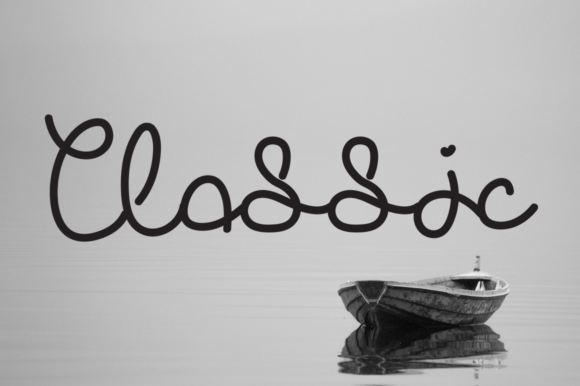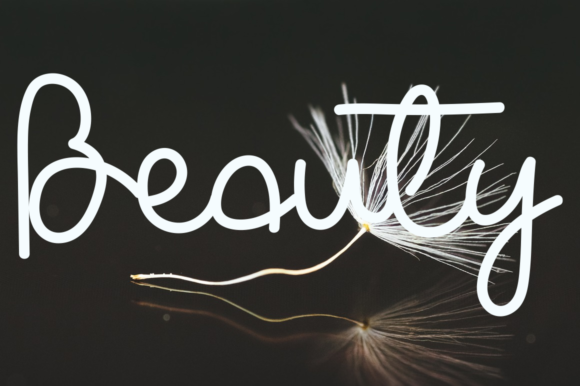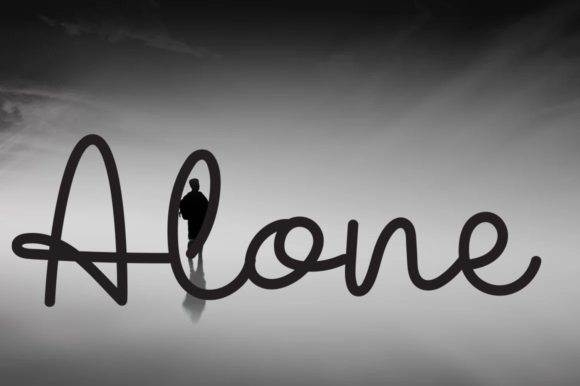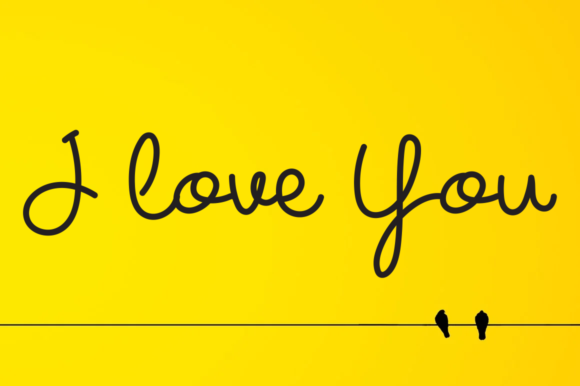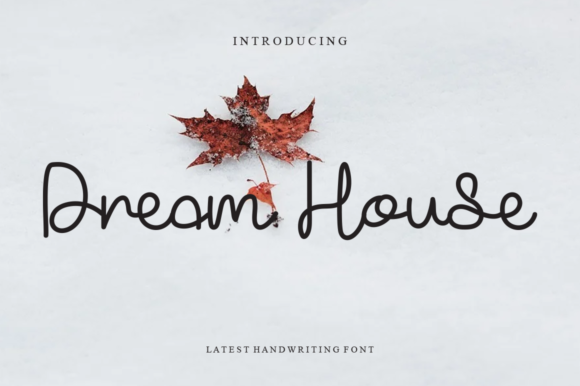
Dream House Font: Elevate Your Designs with Elegance and Personality
Are you a designer or crafter looking for a unique and elegant font to add a personal touch to your creations? Look no further than the Dream House font. This beautiful handwritten font is perfect for a variety of designs, from wedding invitations and thank you cards to logos and greeting cards.
What Makes Dream House Font So Special?
Dream House is a one-of-a-kind font that exudes elegance and sophistication. Its unique handwritten style gives it a personal and distinctive feel, making it perfect for designs that require a touch of personality. Whether you’re creating wedding stationery, branding materials, or social media graphics, Dream House font is sure to elevate your designs and make them stand out.
Perfect for a Variety of Designs
One of the best things about Dream House font is its versatility. It can be used for a wide range of designs, including:
- Wedding invitations and stationery: Add a touch of romance and elegance to your wedding designs with Dream House font.
- Thank you cards and greeting cards: Make your cards extra special with this beautiful handwritten font.
- Logos and branding: Use Dream House font to create a unique and memorable logo for your business or brand.
- Social media graphics: Add a personal touch to your social media graphics and make them stand out with Dream House font.
Why Choose Dream House Font?
There are many fonts to choose from, but Dream House font stands out for several reasons:
- Unique and elegant style: Dream House font has a distinctive and sophisticated style that’s sure to impress.
- Handwritten feel: This font has a personal and handwritten feel that’s perfect for designs that require a touch of personality.
- Versatile: Dream House font can be used for a wide range of designs, from wedding stationery to logos and social media graphics.
- Easy to read: Despite its elegant style, Dream House font is easy to read and understand, making it perfect for designs that require a clear message.
How to Use Dream House Font
Using Dream House font is easy. Here are a few tips to get you started:
- Pair it with other fonts: Dream House font looks great when paired with other fonts, such as sans serif fonts or script fonts.
- Use it for headings and titles: Dream House font is perfect for headings and titles, where its elegant style can really shine.
- Experiment with colors: Dream House font looks great in a variety of colors, from bold and bright to soft and pastel.
If you’re looking for a unique and elegant font to add a personal touch to your designs, look no further than Dream House font. Its beautiful handwritten style and versatile nature make it perfect for a wide range of designs, from wedding stationery to logos and social media graphics. With its ease of use and flexibility, Dream House font is sure to become a favorite among designers and crafters.